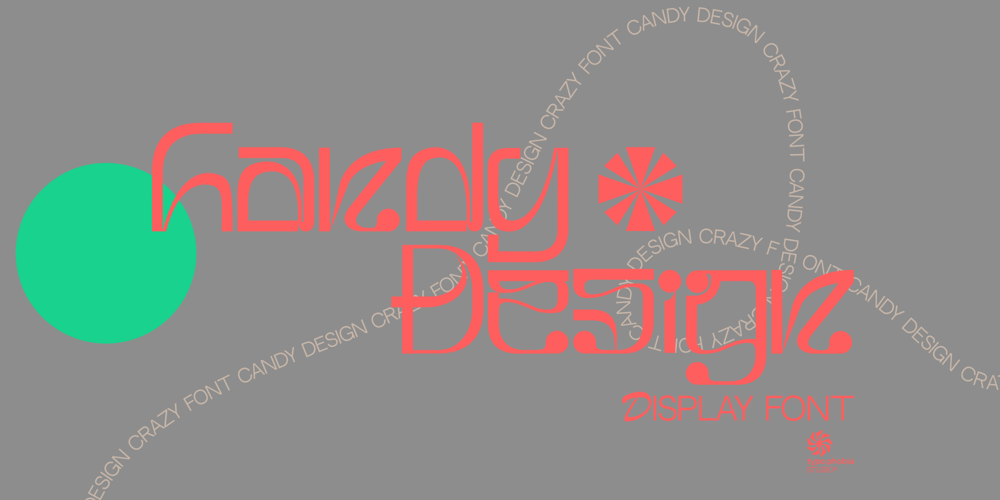
Candy Design Font Family was designed by Konrad Łukasiak and published by Typophobia. Candy Design contains 1 styles and family package options. Candy Design is a display font containing 265 glyphs.It was designed during a stay in Tanzania, Zanzibar in 2022.The main idea was to combine a sans-serif modernist, grotesque typeface with the addition of delicate Arabic accents.Its main assumption of use is posters, product design and branding.Unusual, dynamic and unpredictable accents that are found in practically every letter give the character of a very custom font, also completely not intended for typesetting, which, contrary to the features mentioned above, remains legible.Usually all letters are of the same size – however, as we used to when designing, hide small flavors in the whole sequence of numbers / letters and characters.